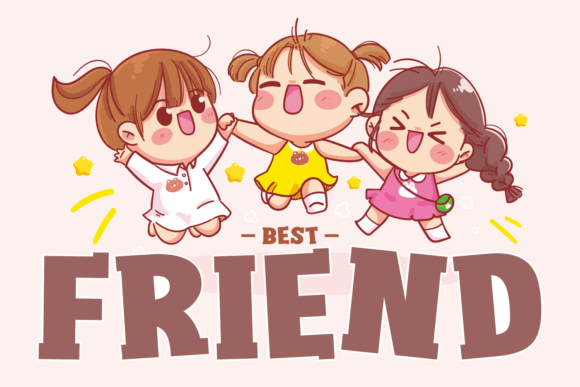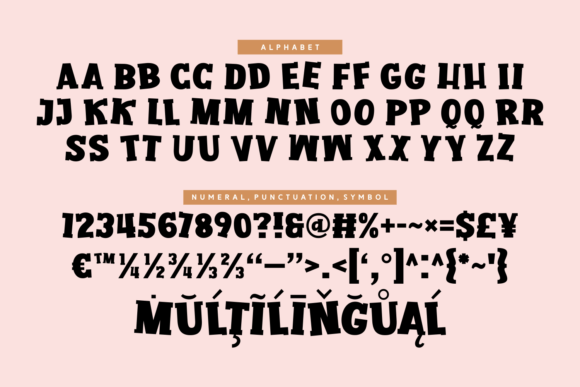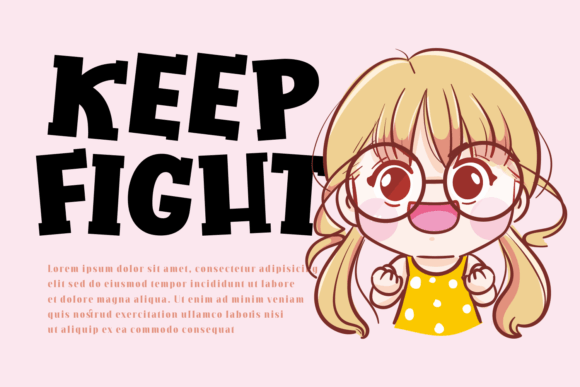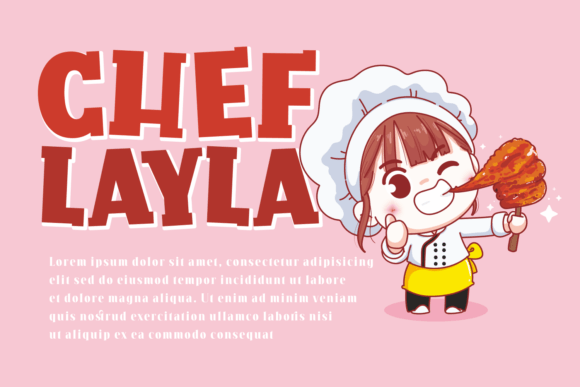
Introduction to Cute Tika Font
Cute Tika is a bold and expressive font.
Its thick and solid lines make it easy to read A balanced fusion of playful and professional, there are a ton of design projects this font will be perfect for.